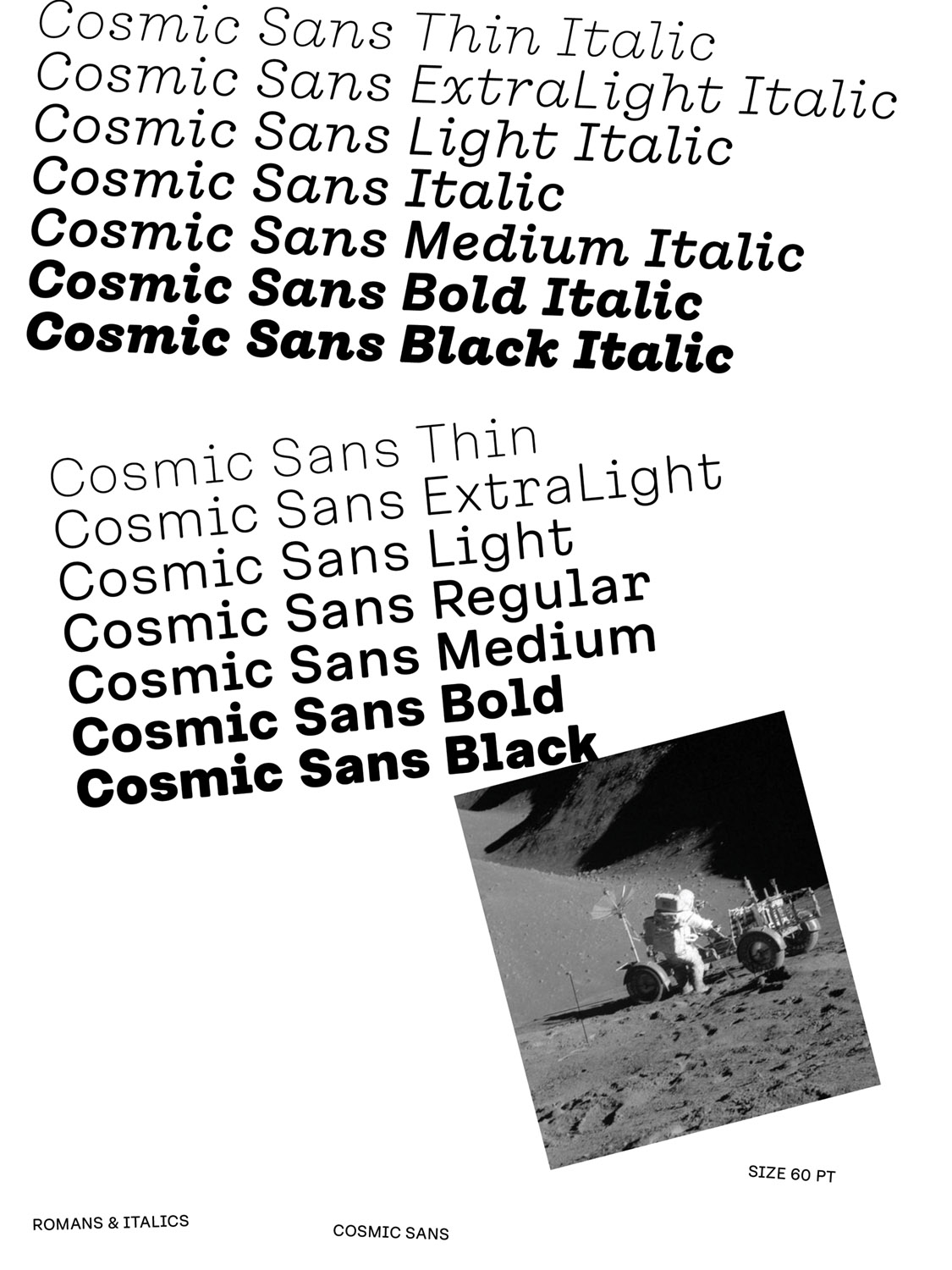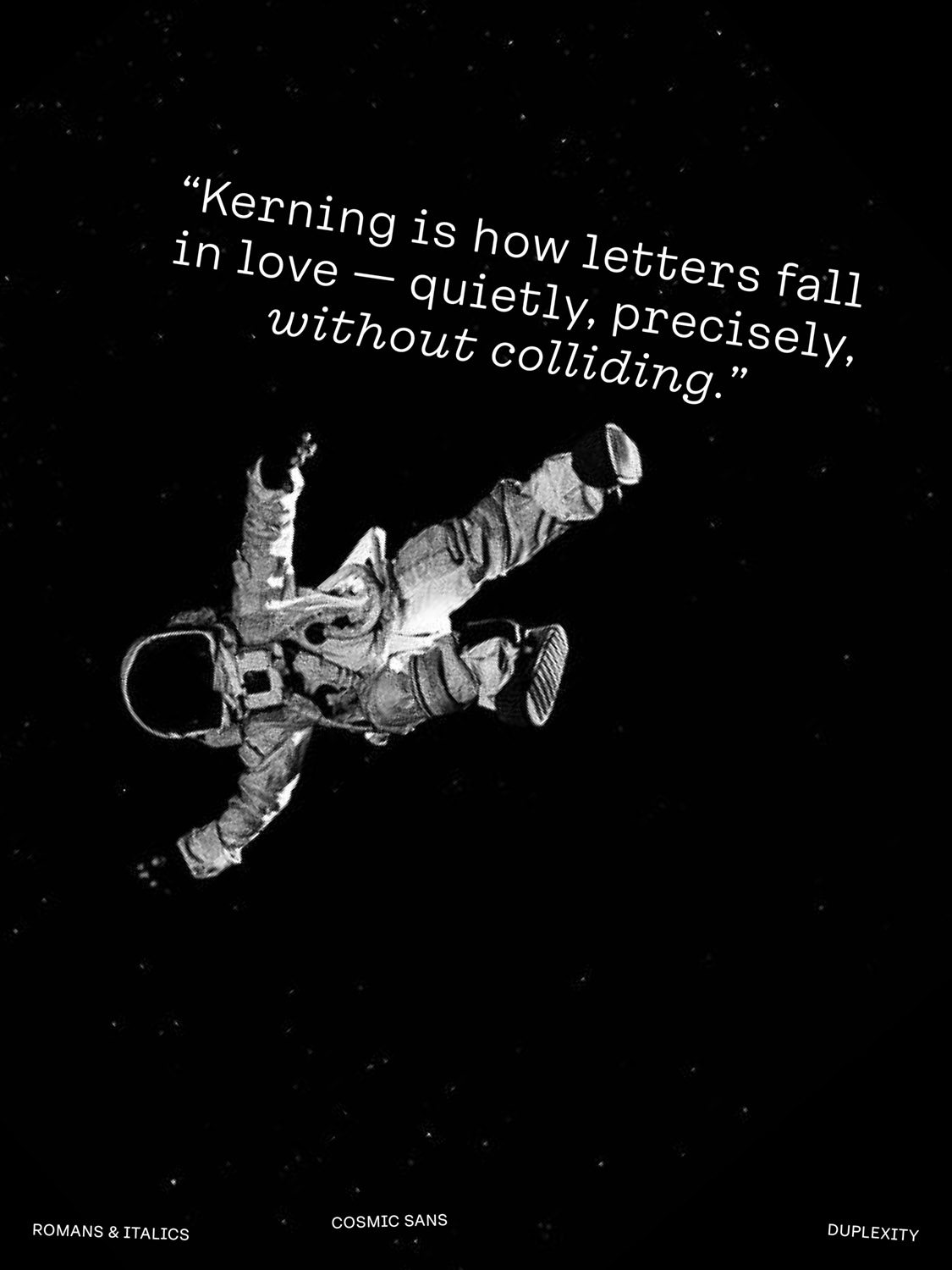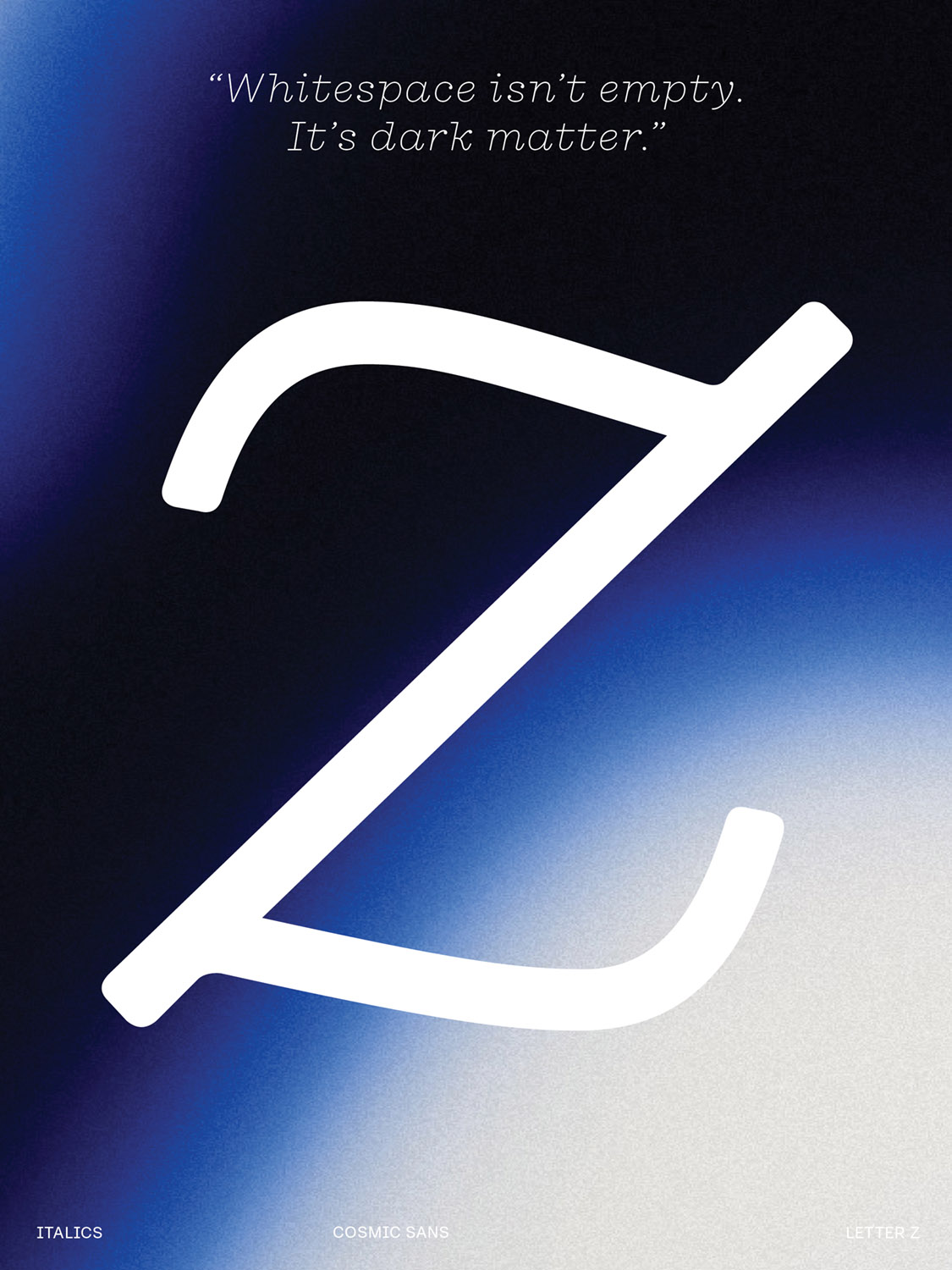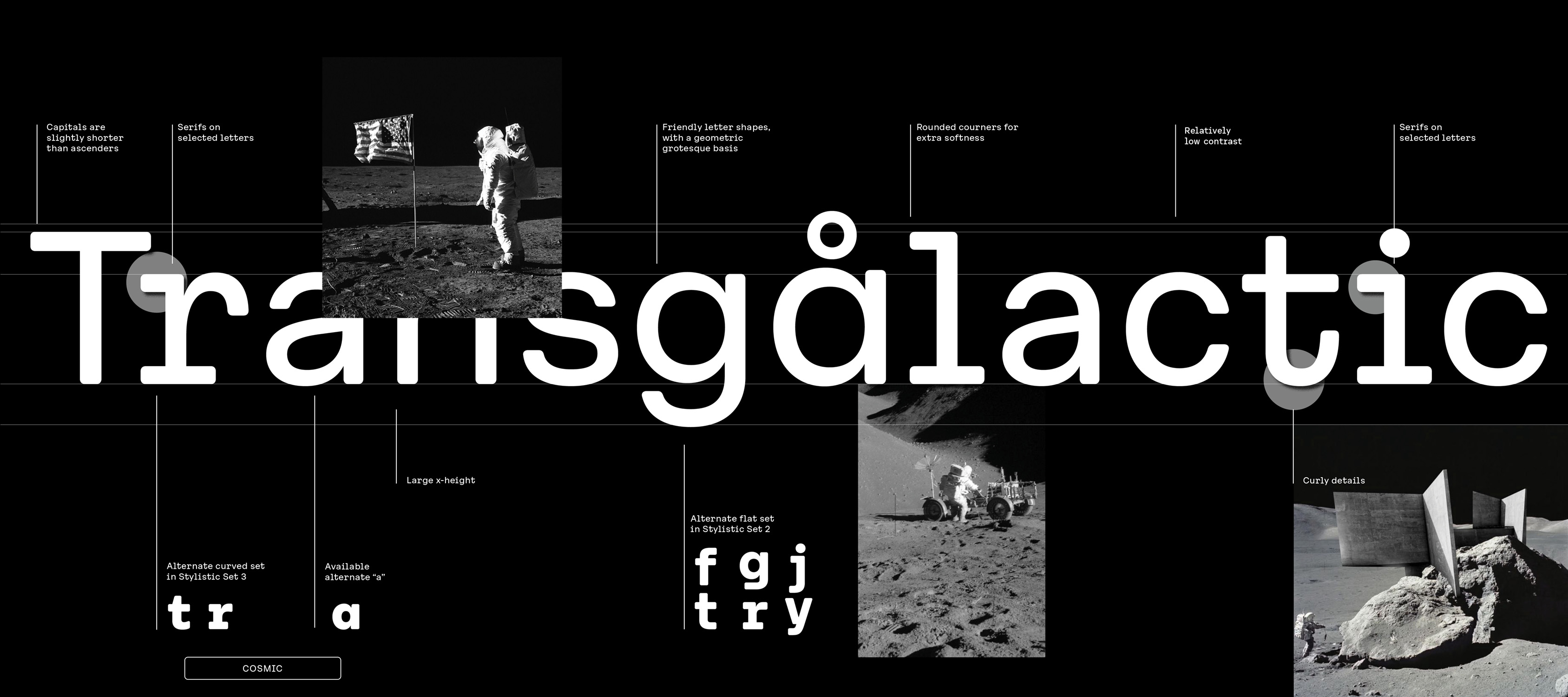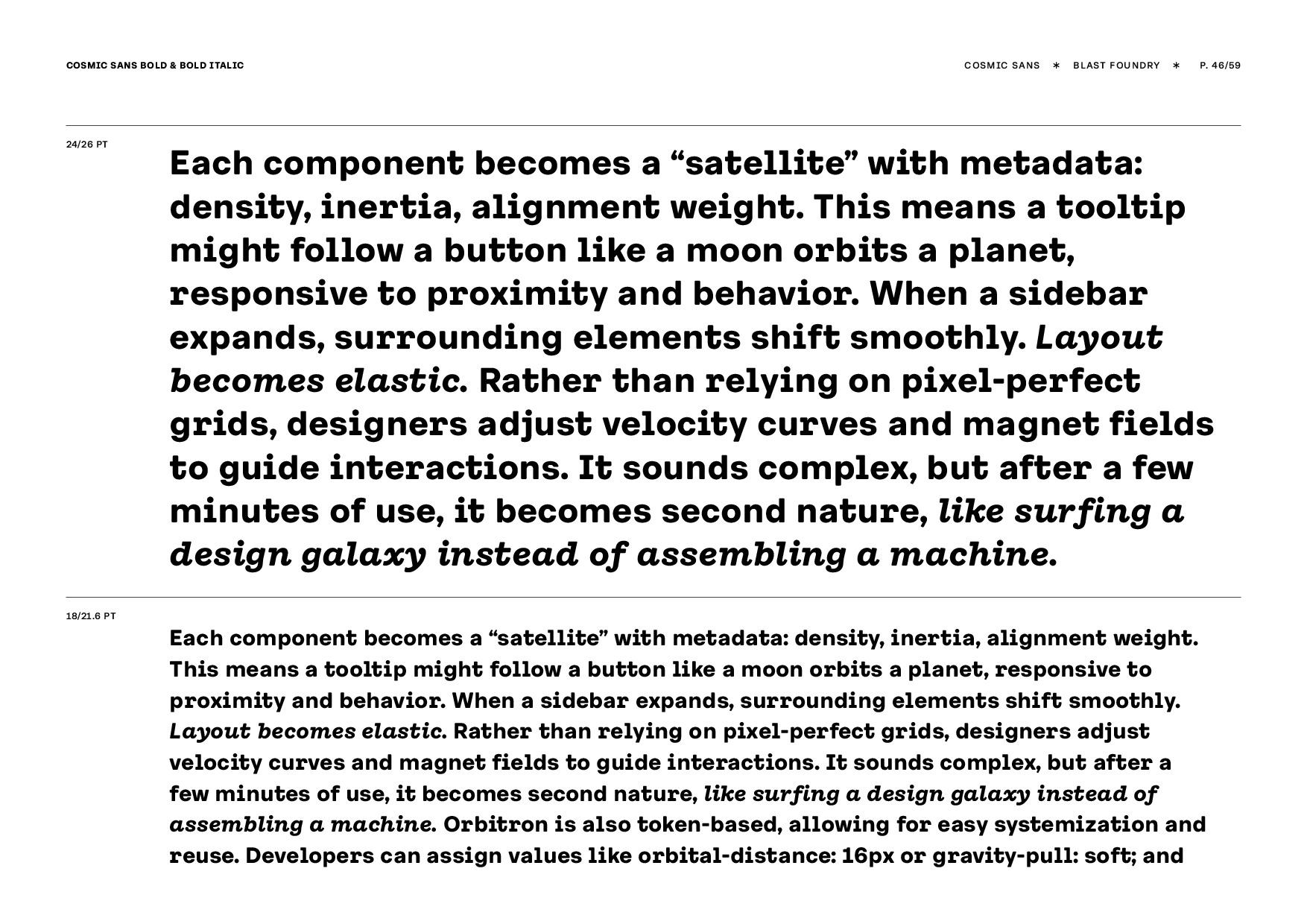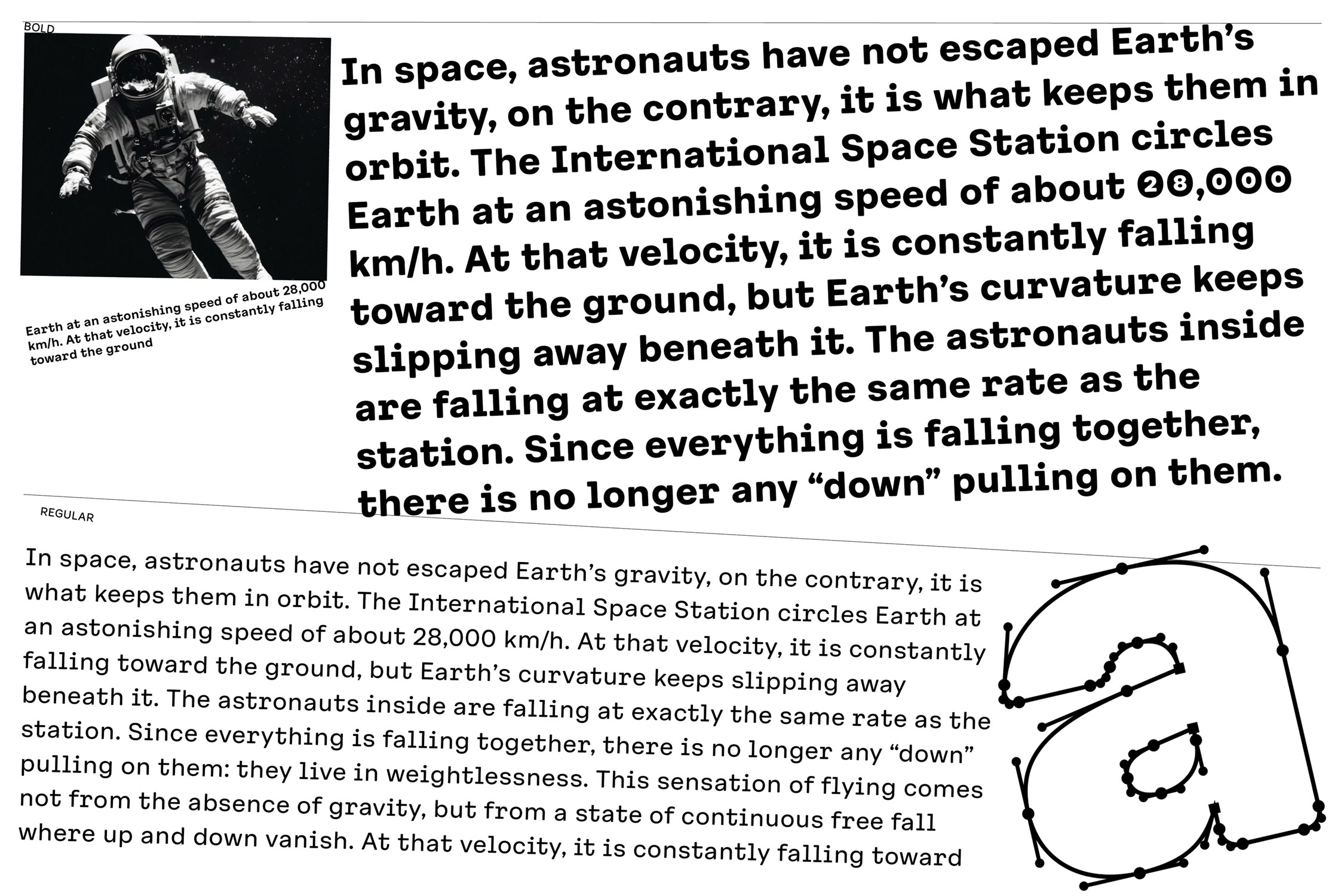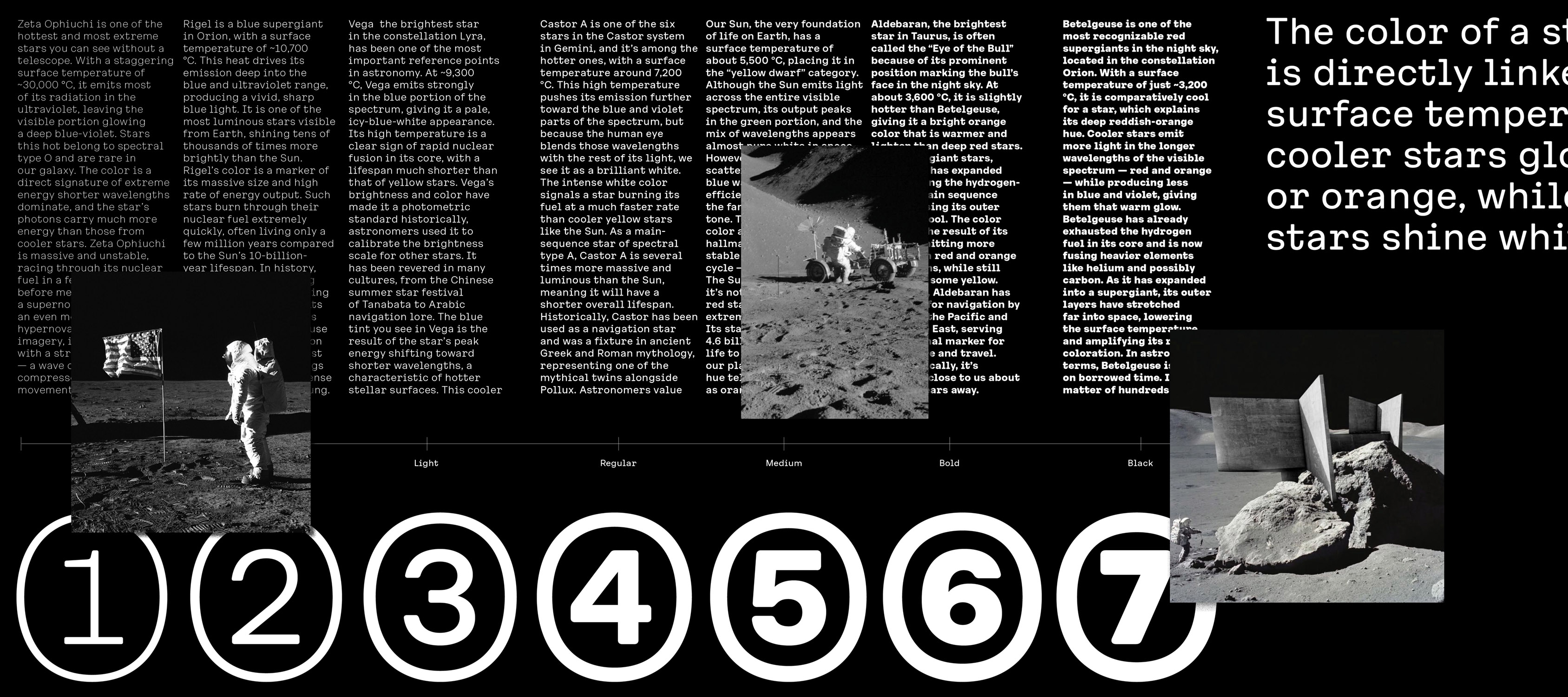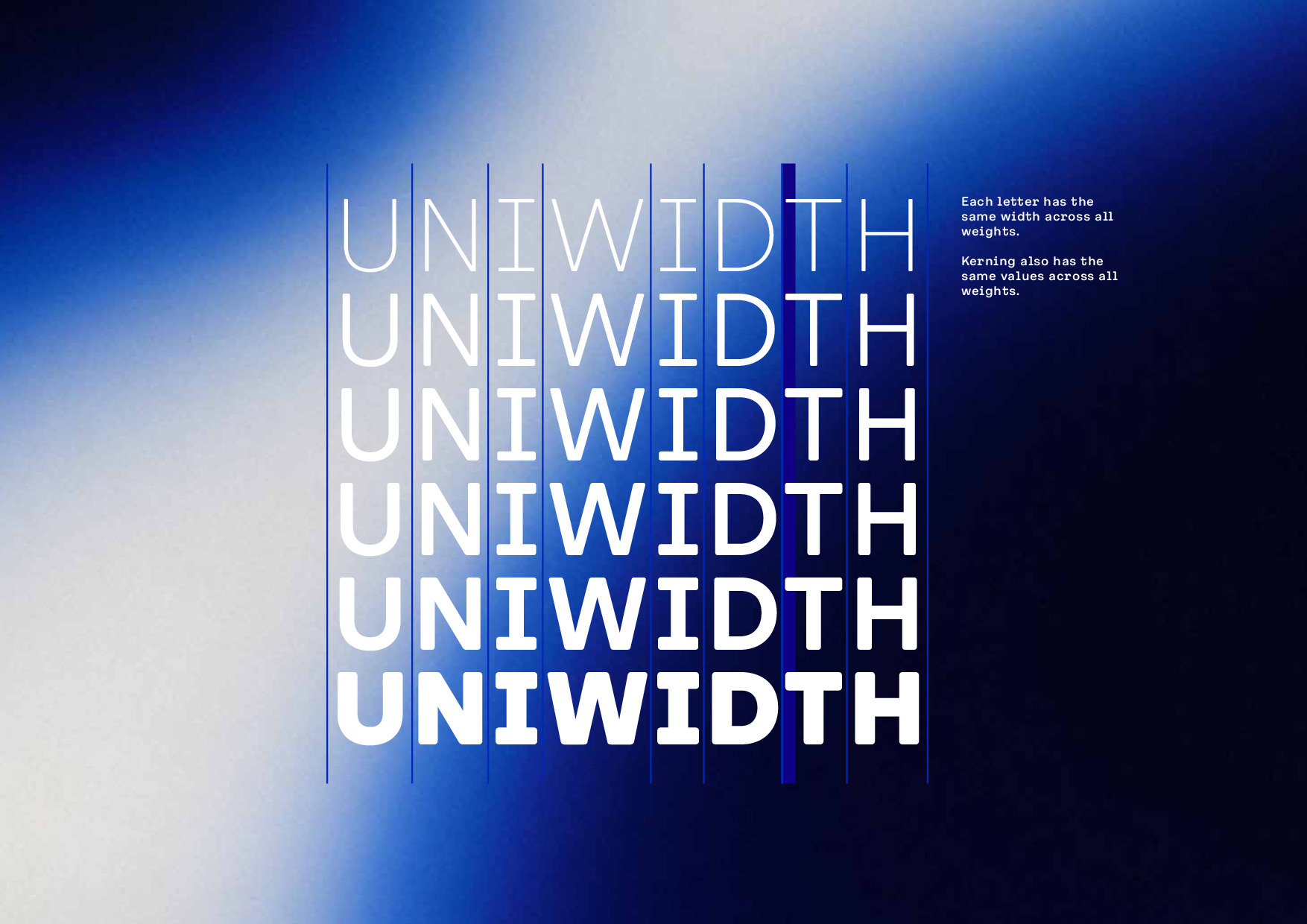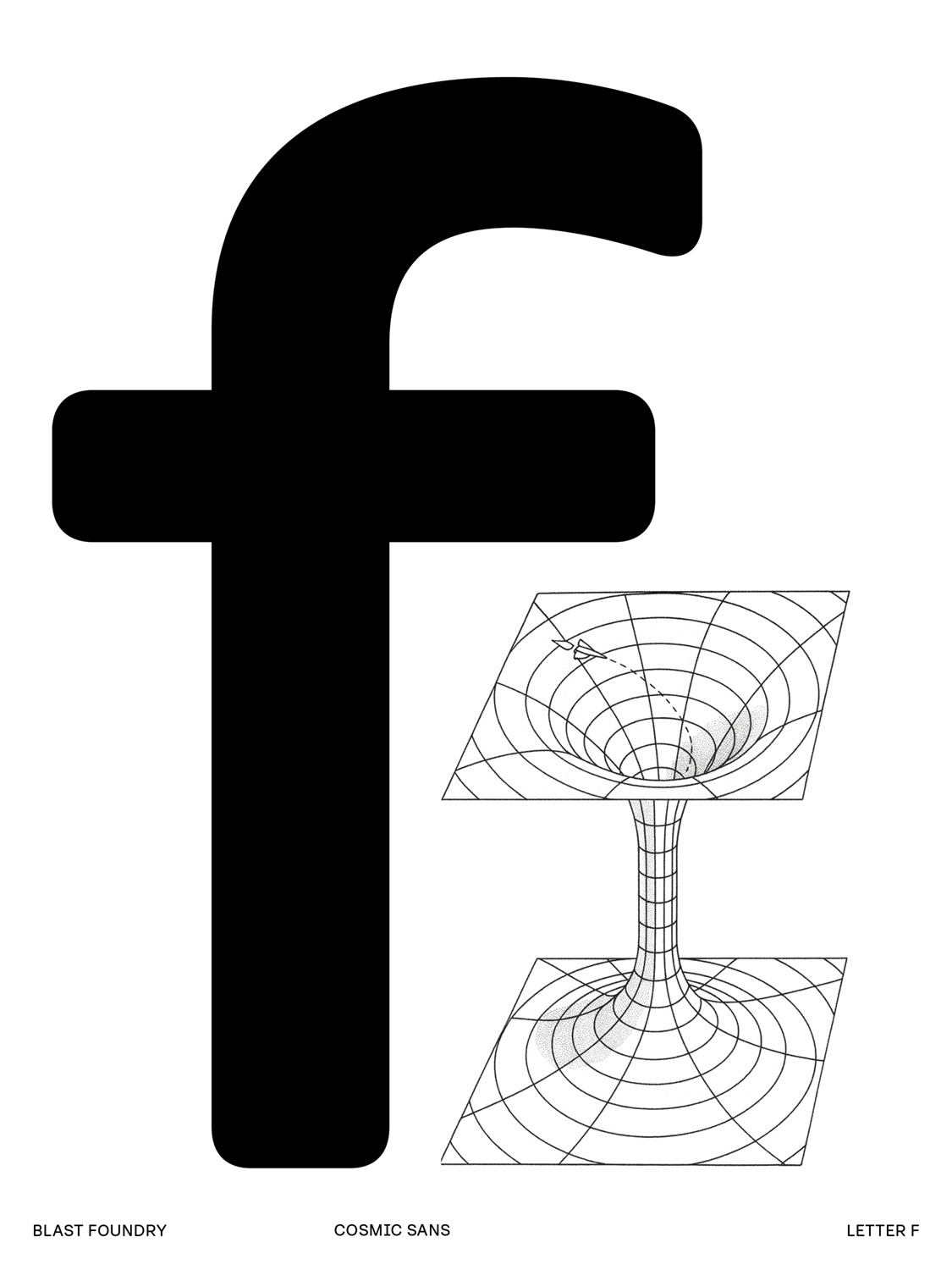
Cosmic Sans
Typewriter-inspired sans with uniwidth design and curly italics
Cosmic Sans is a versatile type family that blends geometry with a soft heart. Inspired by typewriter letterforms and designed with UI in mind, it offers a clean, consistent rhythm across all weights, perfect for modern interfaces, editorial systems, and expressive layouts.
Its uniwidth (aka: duplexed) design means words won’t jump around when weights change, making it especially suited to buttons, toggles, and dynamic labels in digital products.
Rounded edges and low contrast keep it friendly and approachable, while the high x-height keep it legible at small sizes. The italics lean into their quirkier roots with curly details and compact curves, a nod to its typewriter ancestry.
Cosmic Sans is equally comfortable in space-themed posters and high-performance dashboards.